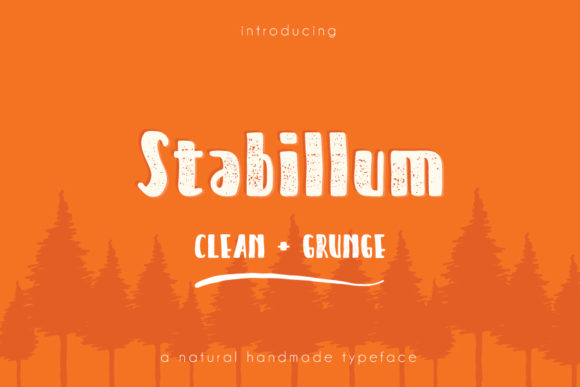
Are you on the hunt for a font that dances off the page, capturing attention like a magnet? Look no further than Stabillum, a display font crafted by the artistic duo of svitch and sober, designed to inject life into your designs.
Stabillum's bold, chunky letters exude a playful charm that will add an irresistible touch of joy to your projects. Let your creativity soar as you pair this distinctive font with your designs, watching in delight as they transform into captivating masterpieces.
Unleash the boundless possibilities of Stabillum and let your imagination run wild. Envision the impact it will make on your posters, flyers, and social media graphics. Its vibrant personality will turn ordinary designs into extraordinary eye-catchers, leaving a lasting impression on your audience.
With Stabillum, you'll discover a font that not only elevates your designs but also enhances your creativity. It's the perfect companion for projects that demand attention, inspiring you to push the boundaries of your imagination.
Don't settle for ordinary fonts that blend into the background. Embrace the captivating energy of Stabillum and let your designs shine brighter than ever before. Add it to your collection today and unlock a world of creative possibilities.